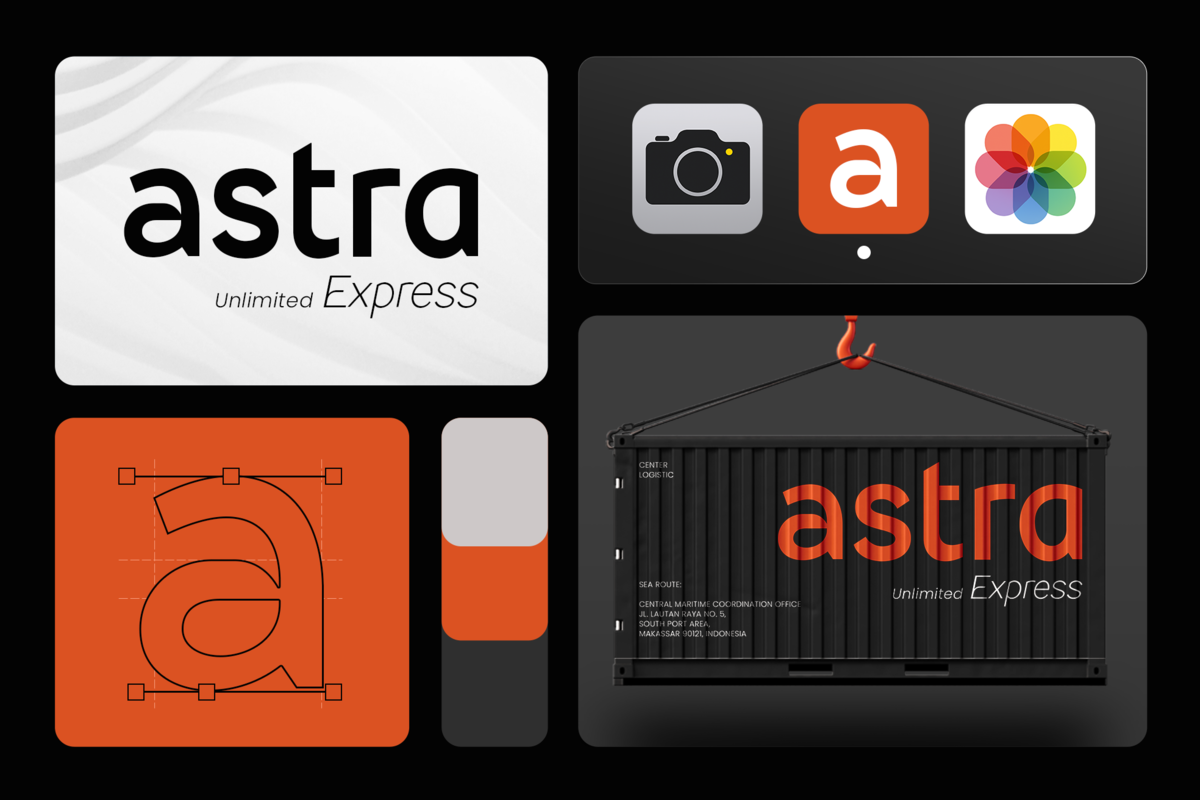
Granty Font - Bold Modern Typeface for Confident Branding ✨
Granty - Modern Branding Font Family ✨
Bold, Clean, Professional — Made for Modern Identity
Meet Granty, a modern branding font family built to elevate your brand with clarity and impact. With clean structure, subtle personality, and balanced proportions, Granty brings bold confidence without the noise — perfect for logos, brand systems, and digital-first identities.
In this branding showcase, I explored how Granty performs across full corporate visuals — from logos to pitch decks and UI screens, it stays sharp, modern, and versatile.
🎯 Ideal for:
– Corporate and business branding
– Logo systems & brand guidelines
– Presentations & digital platforms
– Clean, modern typographic identities
Granty is subtle in style but strong in presence. Precise. Flexible. Built for trust.
Let your brand speak with purpose — even in tight, minimalist spaces.